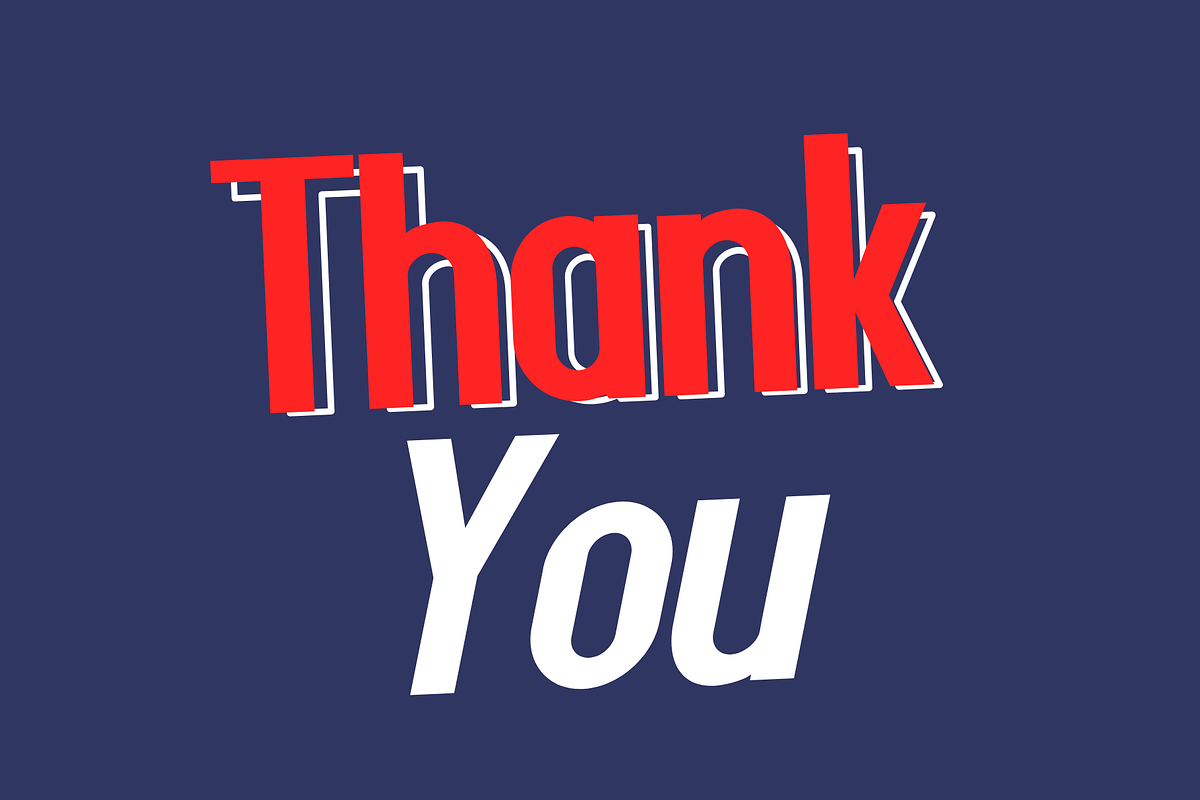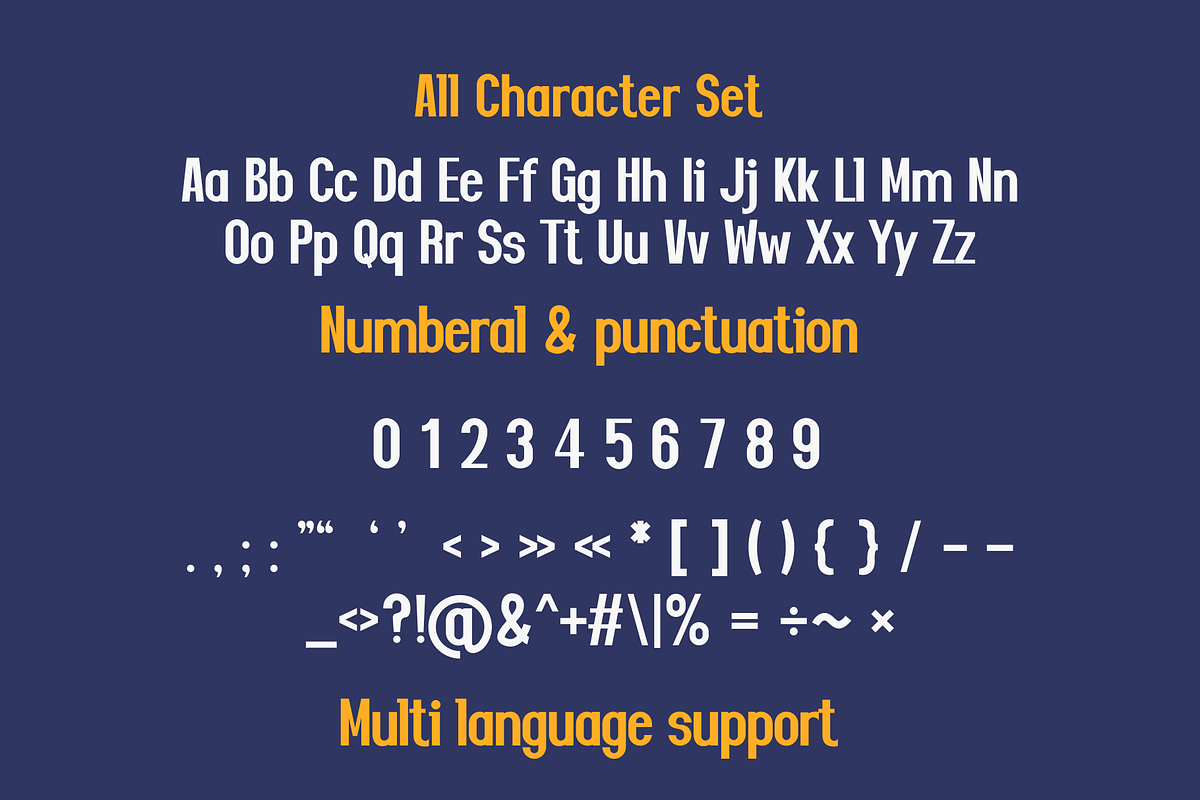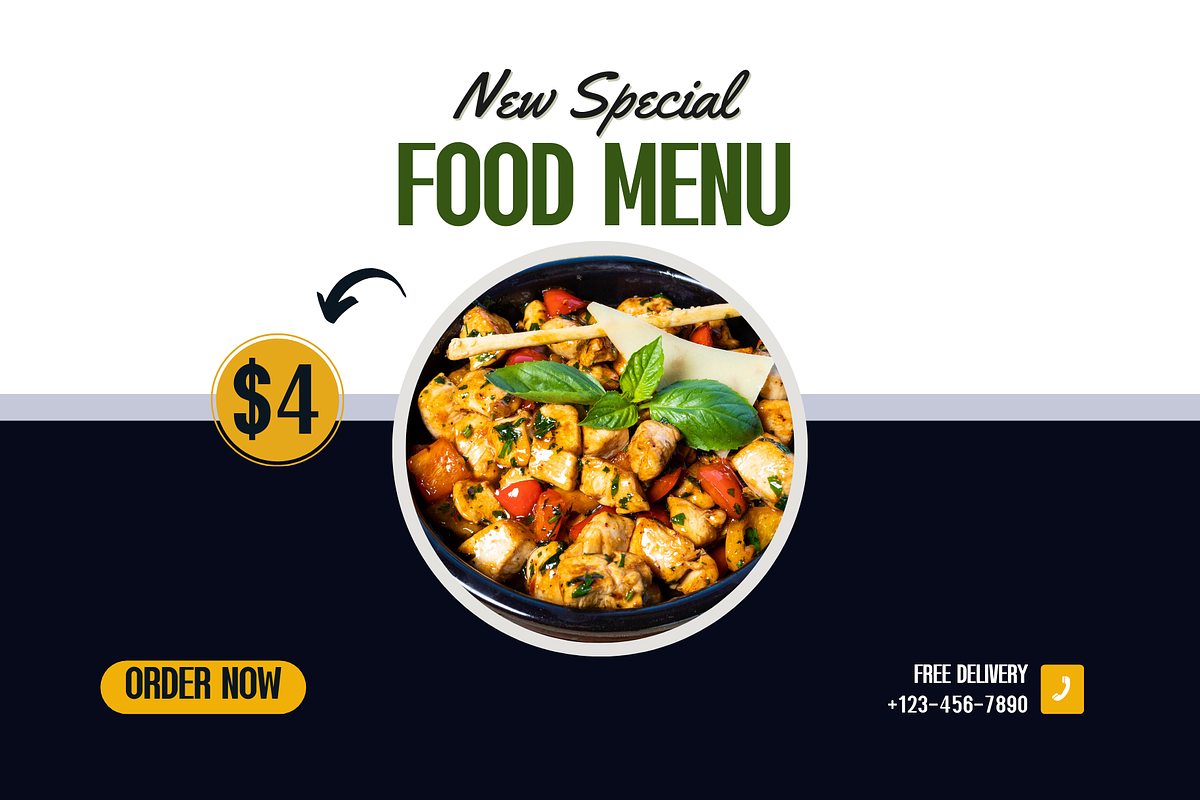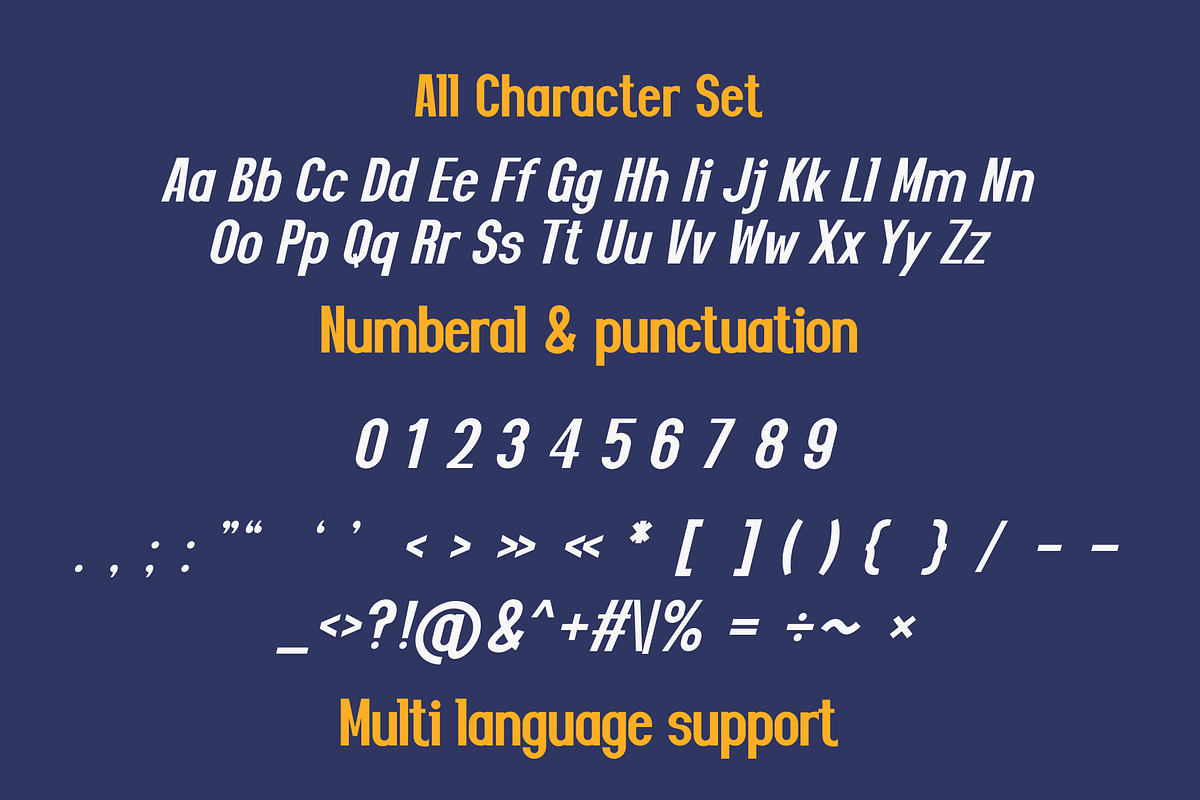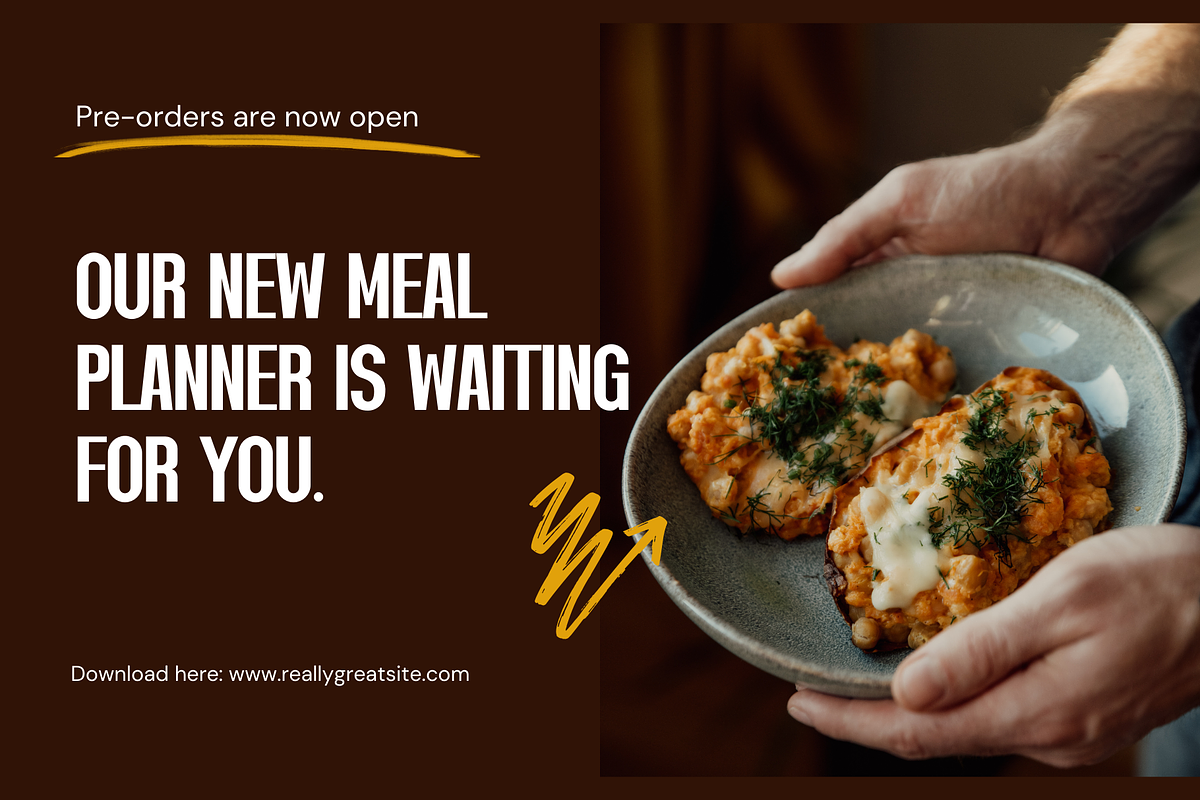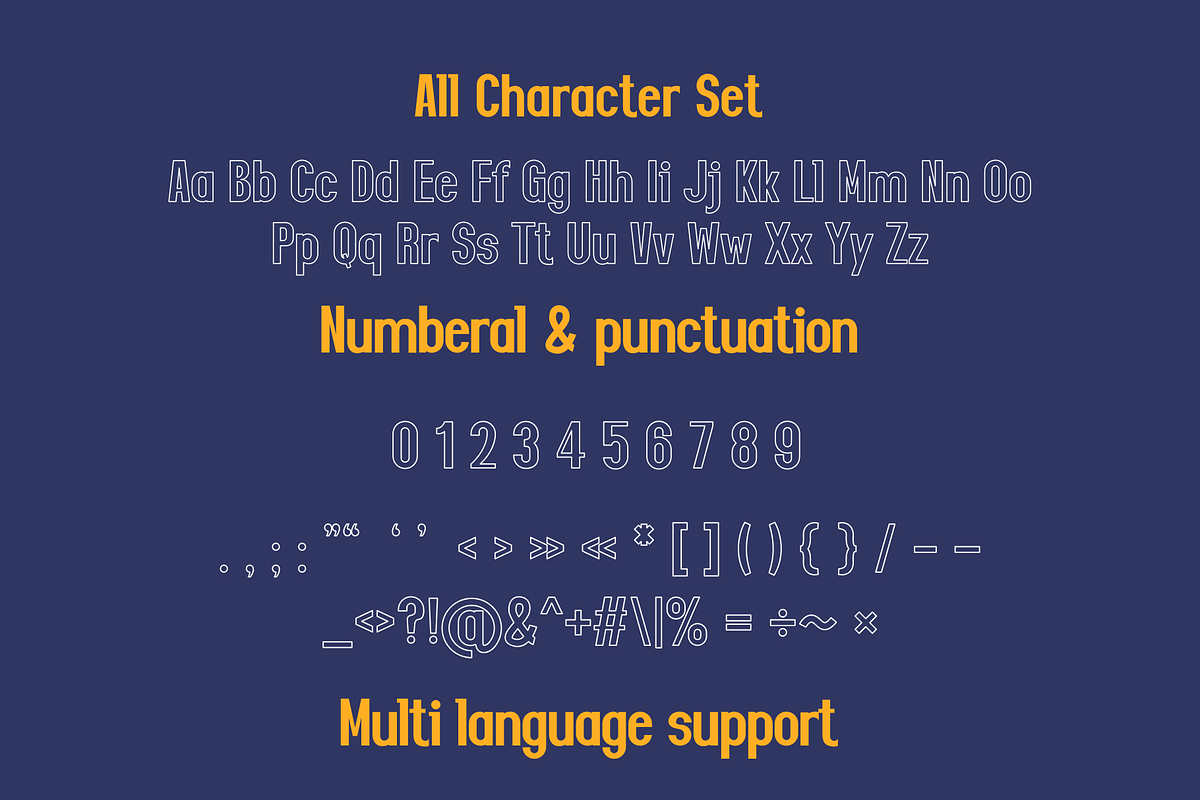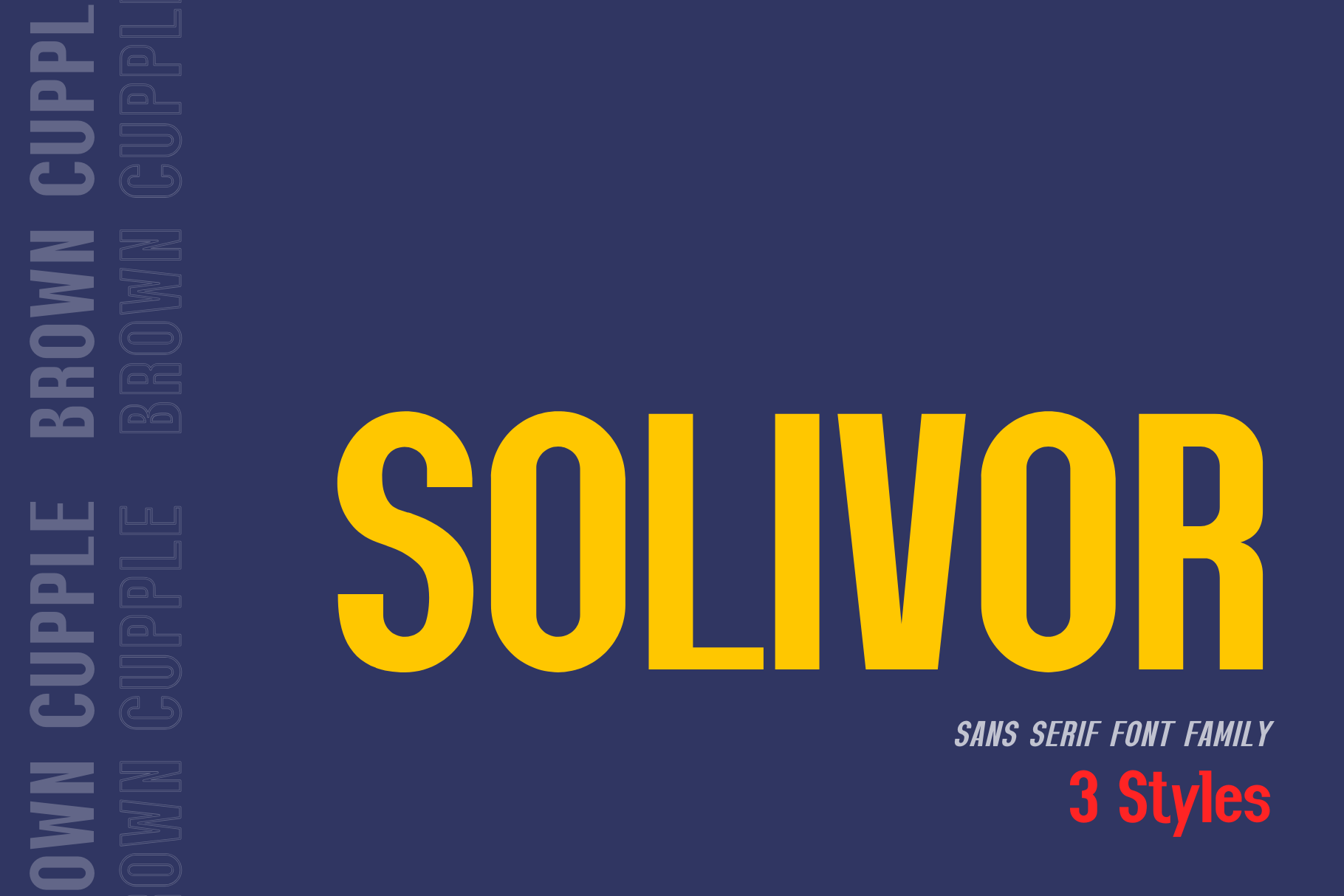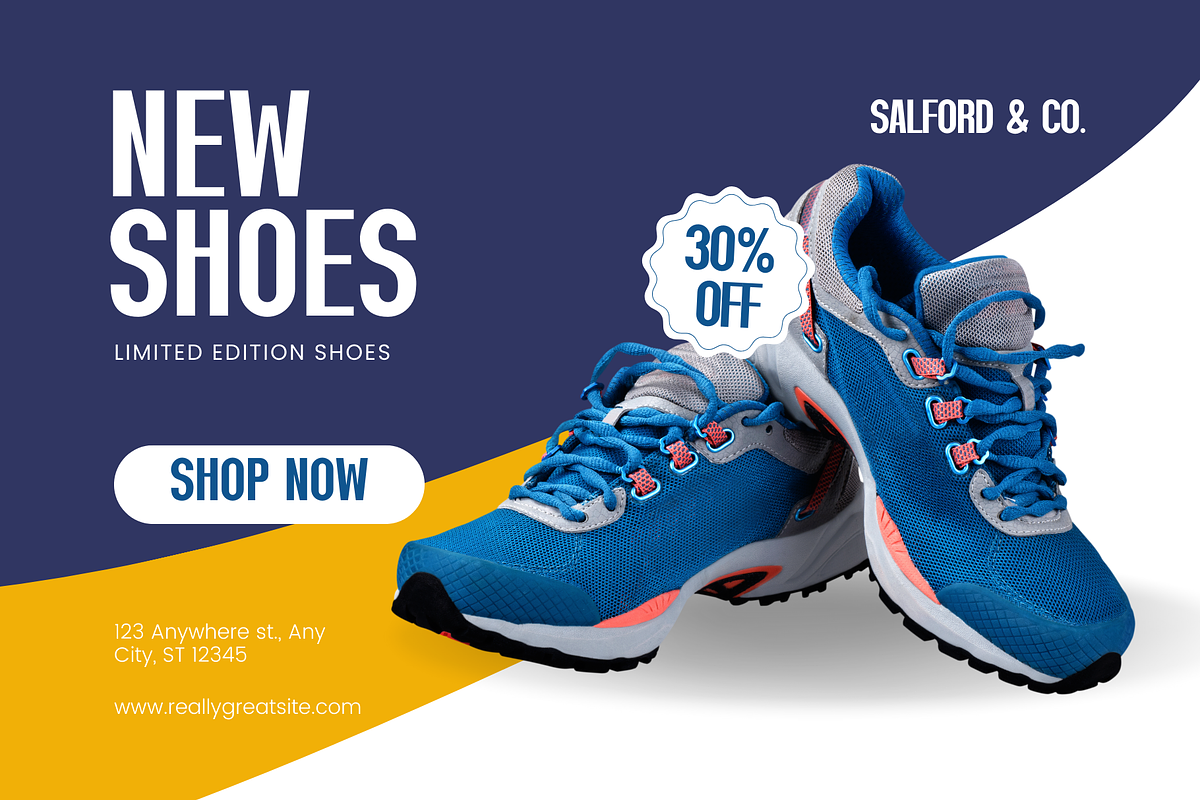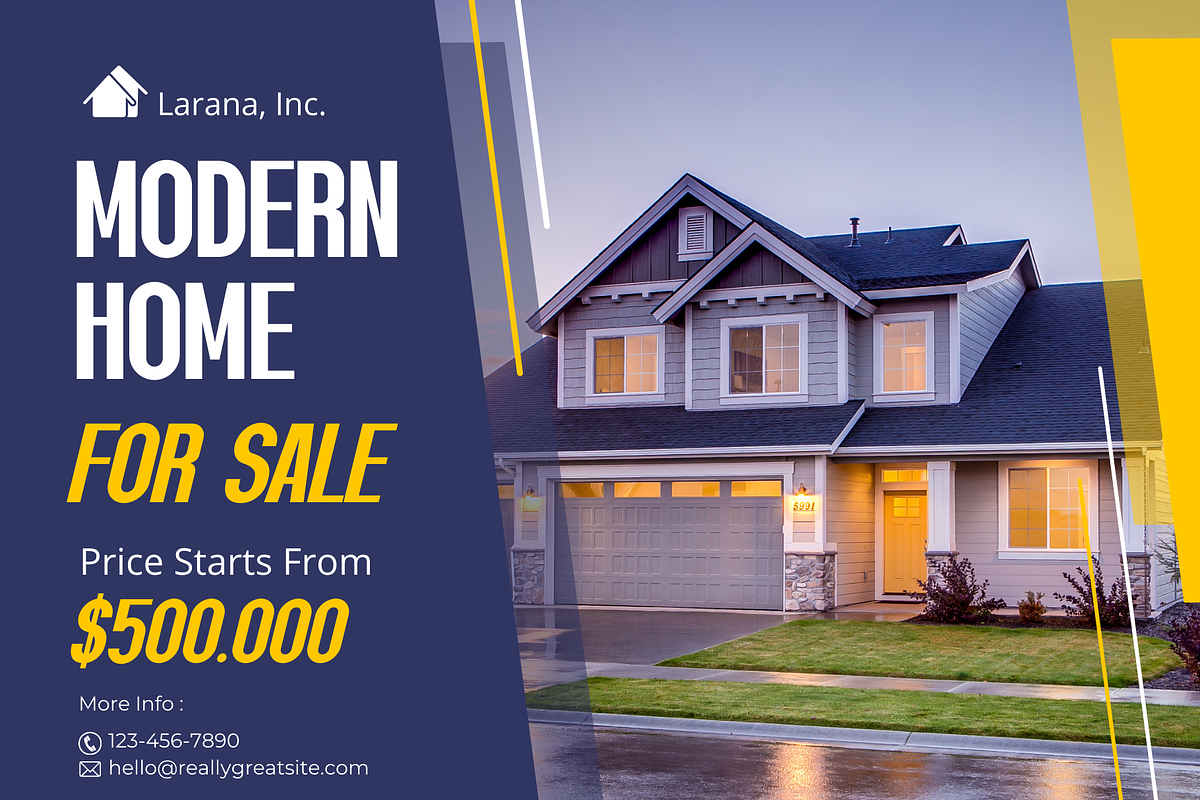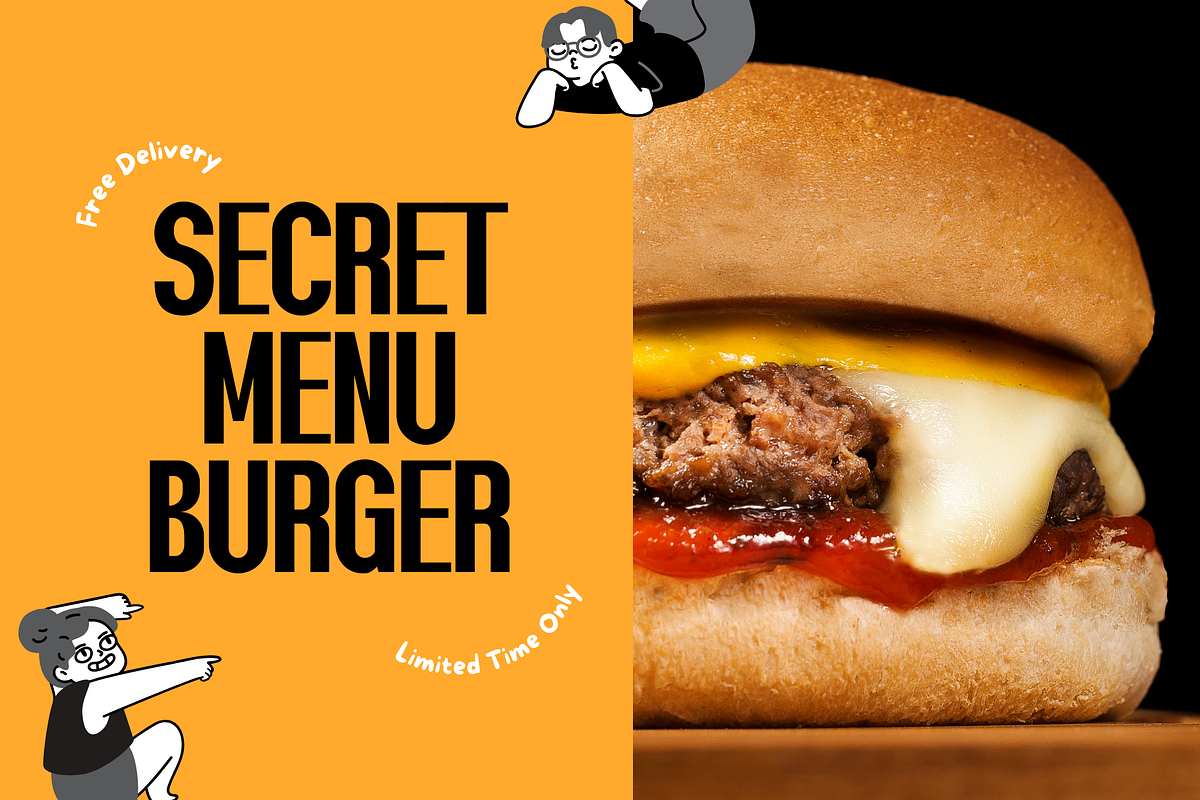
Solivor is modern sans serif font
Solivor is a clean and modern sans serif font designed for versatility and readability. With its bold, professional look and sleek geometric lines, this font is perfect for branding, headlines, posters, web design, and editorial layouts. Its minimalist design ensures maximum legibility, making it ideal for both digital and print projects.